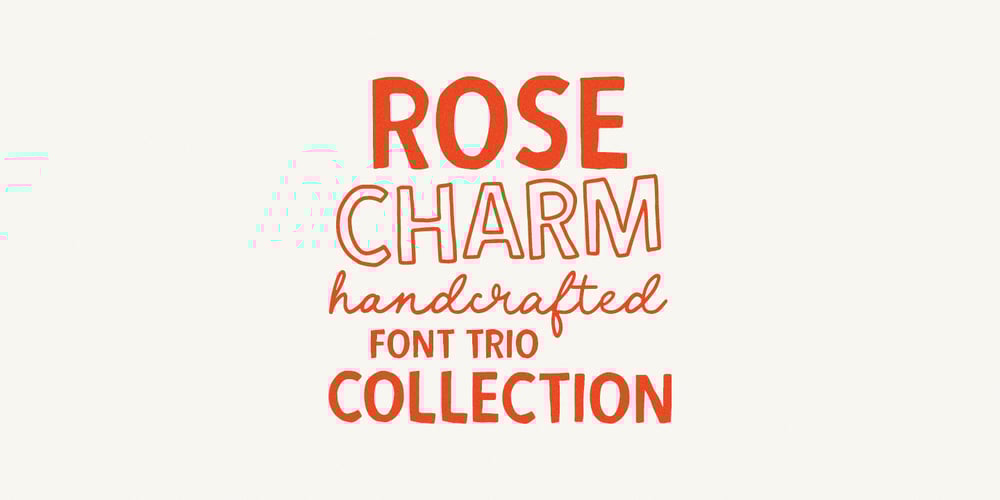
Rosey Charm Font Family was designed by Dmitrii Chirkov and published by Supfonts. Rosey Charm contains 3 styles and family package options. Explore Rosey Charm! A delightful, hand-drawn font family made with love just for you. With 3 distinctive styles, it helps you effortlessly add creativity and personality to any project. From modern invitations to unique posters and stylish stationery, Rosey Charm is your go-to toolkit for all design needs.WHAT YOU GET- Rosey Charm Script- Rosey Charm Sans- Rosey Charm Outline SansEnjoy Creating